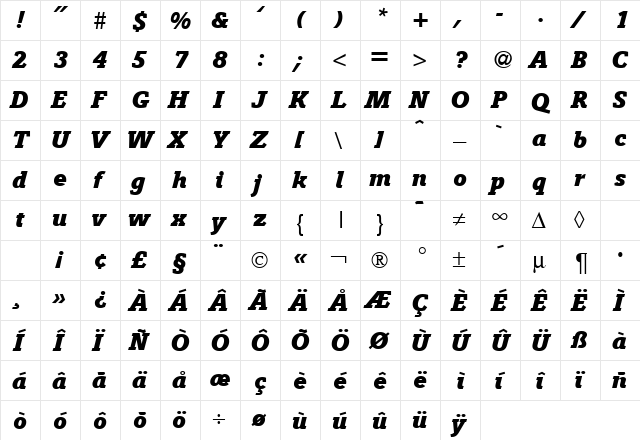
OsmiumHeavy RegularItalic
Design Context for OsmiumHeavy Typeface
OsmiumHeavy offers clean, dependable letterforms without strong stylistic allegiance, making it a practical choice for designers who need flexibility. The slanted form adds forward momentum and visual energy.
Pro Tip: Use OsmiumHeavy for emphasis, pull quotes, and subheadings where its slanted energy can add rhythm to the layout.